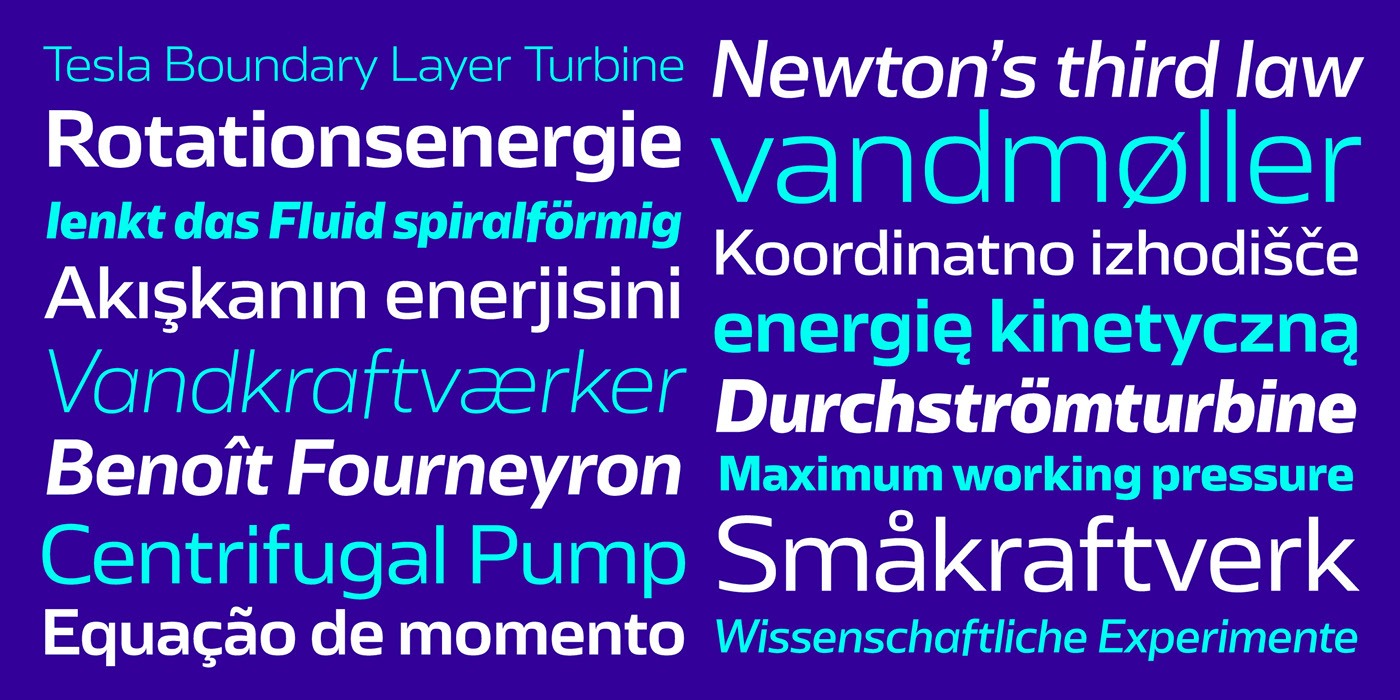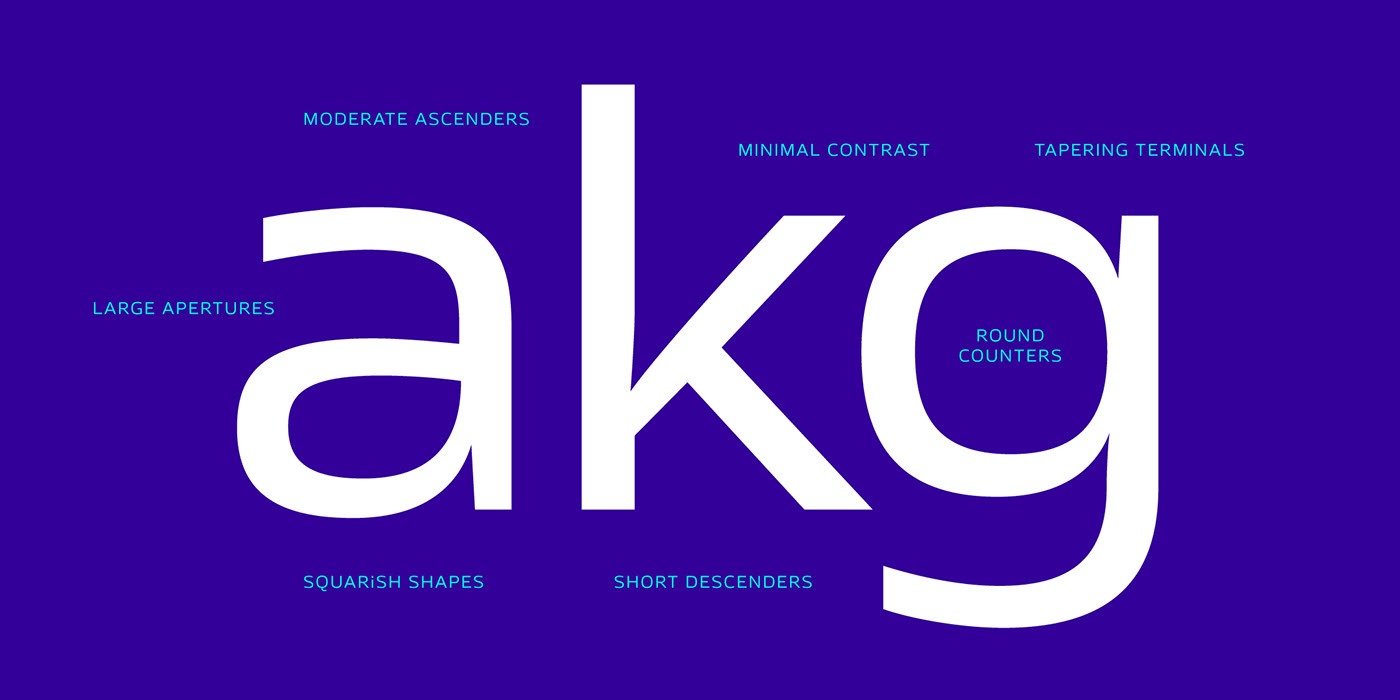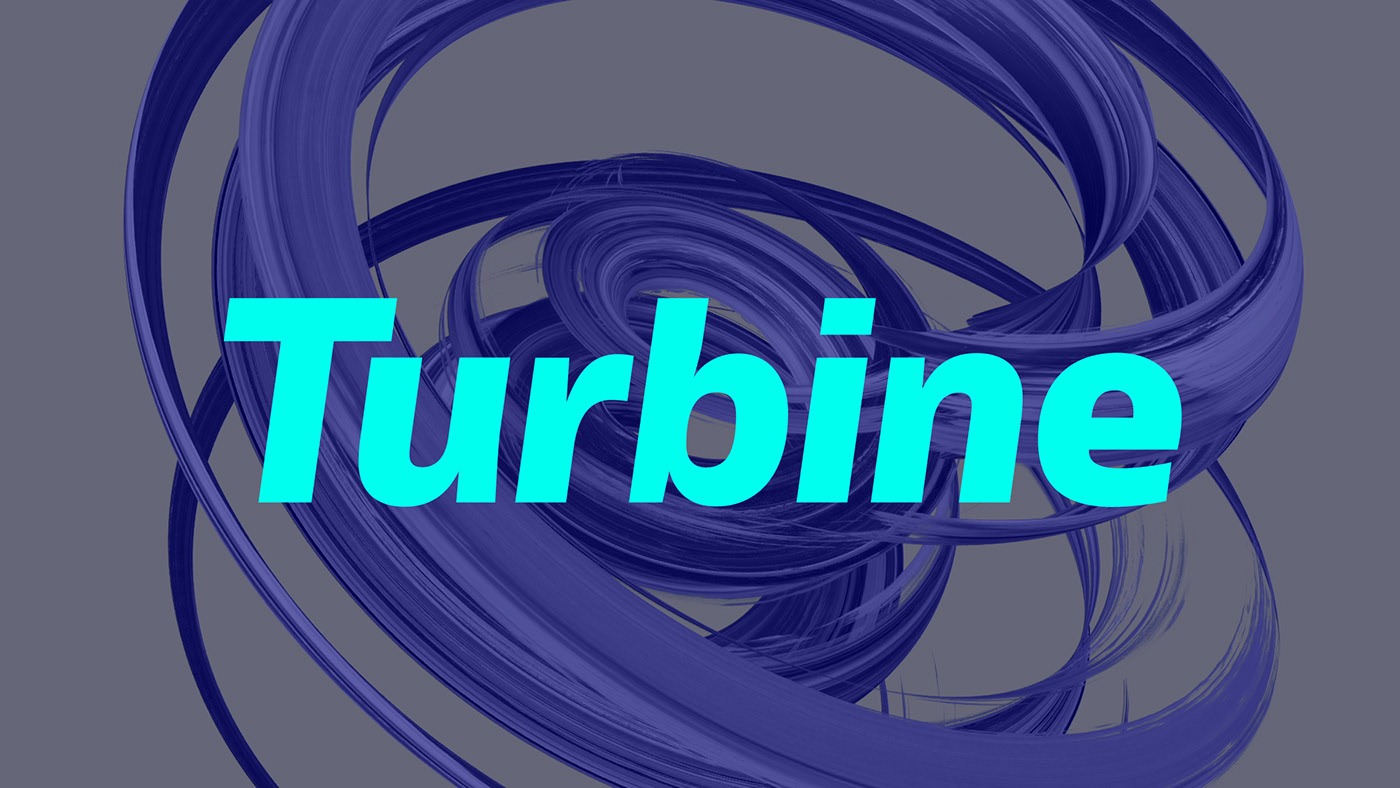
Turbine Font Family
Turbine Sans Serif Font
This font is a geometric sans serif typeface Publisher by Fontwerk with district curves and open apertures. The family has 7 weights ranging from Thin to Extrabold all with corresponding italics.
In naming this typeface, the designer from Cologne emphasizes its technical prowess and properties. The superelliptical curves (a mixture of ellipse and rectangle, also known as Lamé curve), the wide proportions, the minimal contrast and the tight spacing result in a cool appearance that is highly recognizable. It makes Turbine the perfect fit for corporate design projects and advertising campaigns, especially for clients working in engineering, technological or pharmaceutical industries.
The fine geometric feature has often been applied in architecture, urban planning, product and interior design and its application exudes a friendly, approachable appearance. And here, in Turbine it comes into play. This type of design became particularly popular in the 60s and 70s, and this look and feel spills over into Turbine, giving it a little bit of a retro feel. However, less ‘retro’ in the nostalgic sense and more in the futuristic and confidence-inspiring sense, because its suitability for the here and now is without question.